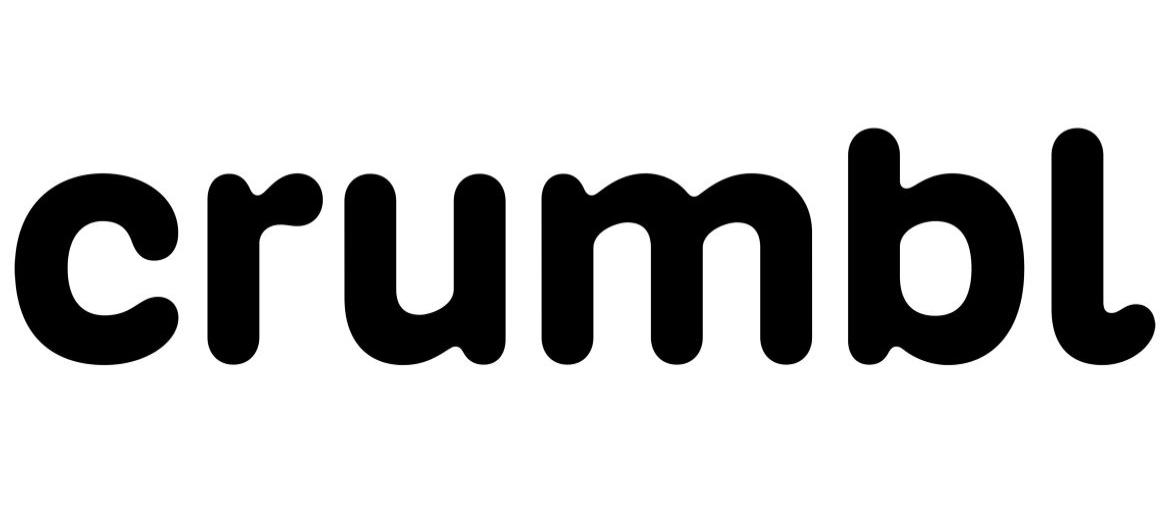
Crumbl Cookies Font
The Crumbl Cookies font captures the brand’s modern, playful, and freshly baked personality. Its rounded, clean letterforms give off a welcoming, approachable vibe while maintaining a sleek, contemporary style. Perfect for bakery branding, packaging, or café signage, this typeface communicates fun, creativity, and indulgence, reflecting the brand’s focus on quality and mouthwatering presentation.
About Crumbl Cookies
Crumbl Cookies, founded in 2017 in Logan, Utah, has grown rapidly into a nationwide sensation thanks to its oversized, gourmet cookies and signature pink boxes. Known for rotating weekly flavors and visually striking presentations, the company has created a strong identity in the dessert market. The Crumbl Cookies font mirrors this identity—playful, elegant, and inviting—perfectly reflecting the joy of discovering a fresh, warm cookie straight from the oven. Its design reinforces the brand’s commitment to fun, quality, and unforgettable sweet experiences for customers across the country.